Art Reveal: Top 20 Inspiring 3D Animation in Advertising
3D animation in advertising has become a trend to attract people’s attention and leave a deep impression constantly. However, amidst the rivalry of digital marketing, marketers are probably facing struggles to represent their brands in advertisements.
This article is your answer. Find the 3D animation ads ideas for your brand to get inspired by. Start digging from here!
Key Takeaways:
- The importance of 3D animation in digital marketing ads to increase the sales rate and brand recognition.
- How to manage 3D animation ideas to reach the marketing goals.
- The points to discover for 3D animation ads that would leave a serious note and impression on the audience.
3D Animation Used in Advertising Examples
Look at how brands manifest their creativity to create 3D animation for advertisement to promote their products and services.
1. Samsung Biometric Card IC
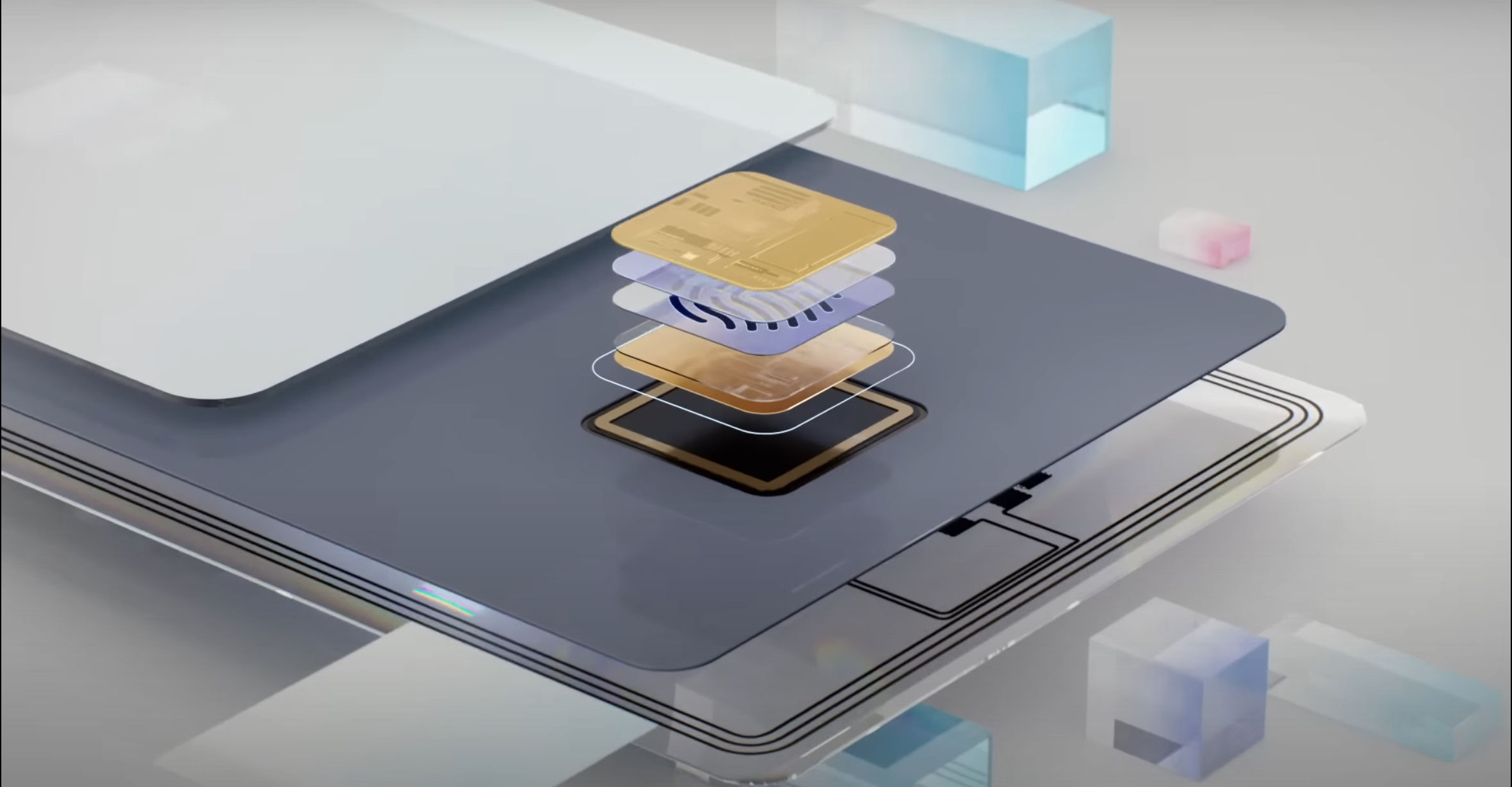
Samsung is one of the technology leaders in the world representing a 3D animation to show the Samsung Biometric Card IC. Throughout the 3D animation, Samsung is trying to give a picture of the capability of their chip in the biometric card.
2. Slack vs Email
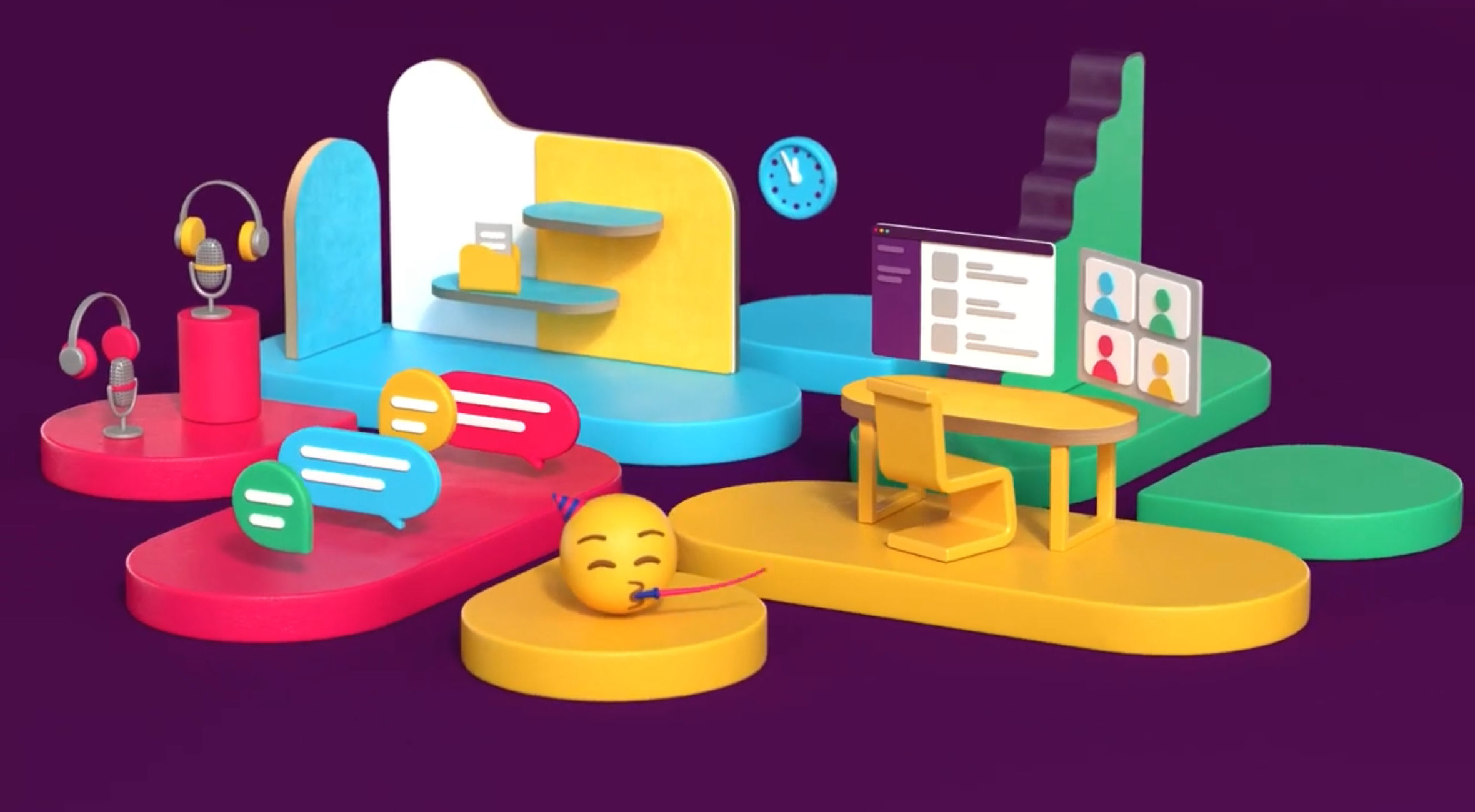
The main idea of Slack is to spread product awareness about how Slack could work on the company’s email. To keep the idea, Slack points out the brand color in the motion design along with the motion effect. As an explainer video, Slack vs Email comes up with clear storytelling to deepen knowledge about the product.
3. Super Mario x Oreo
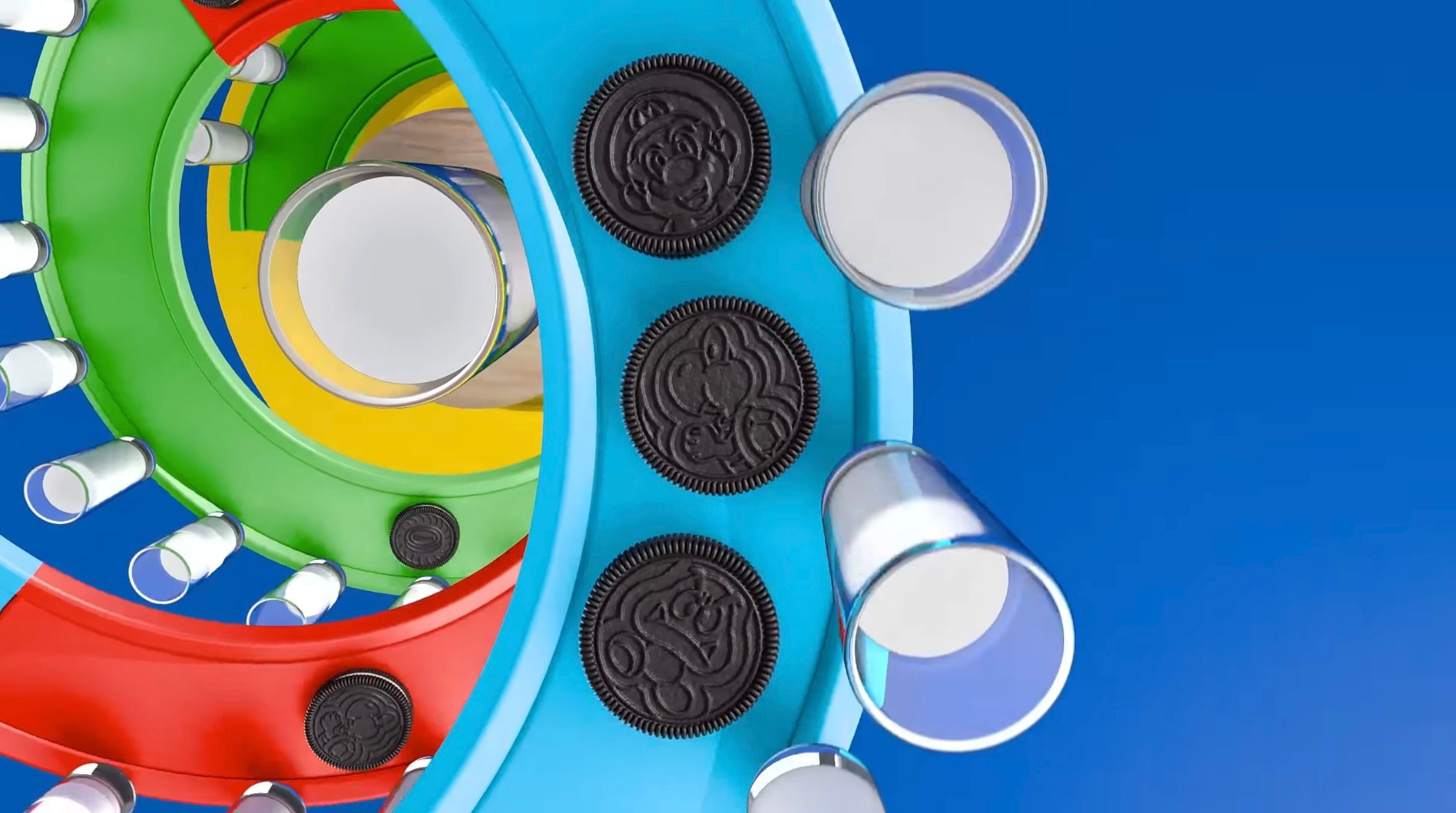
Oreo remains with a playful brand personality. Super Mario x Oreo 3D animation serves as a unique collaboration video with the spotlight on the Super Mario characters along the iconic OST. The 3D animation consistently uses a vibrant color palette to influence the audience’s emotions such as excitement, happiness, and playfulness.
4. Heinz – Real Stories
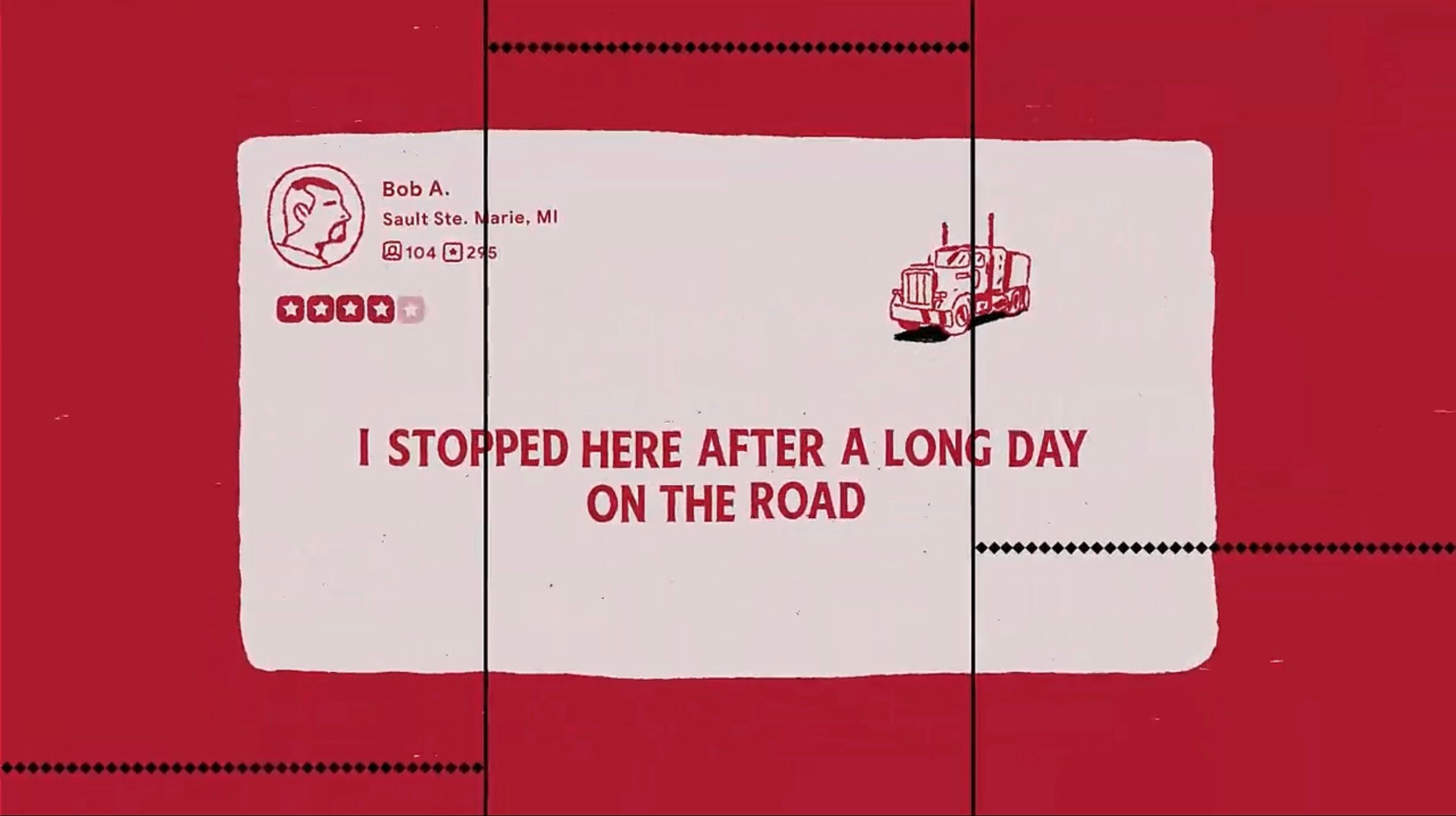
Heinz Real Stories is a testimonial video teaser for their new product. The animation storyboard collects customers’ feedback about Heinz and is framed into a vintage video. The main key of this design is the retro font, kinetic typography, hand-drawn elements, and grain effect to recall the old-style animation video.
5. Sign In With Google
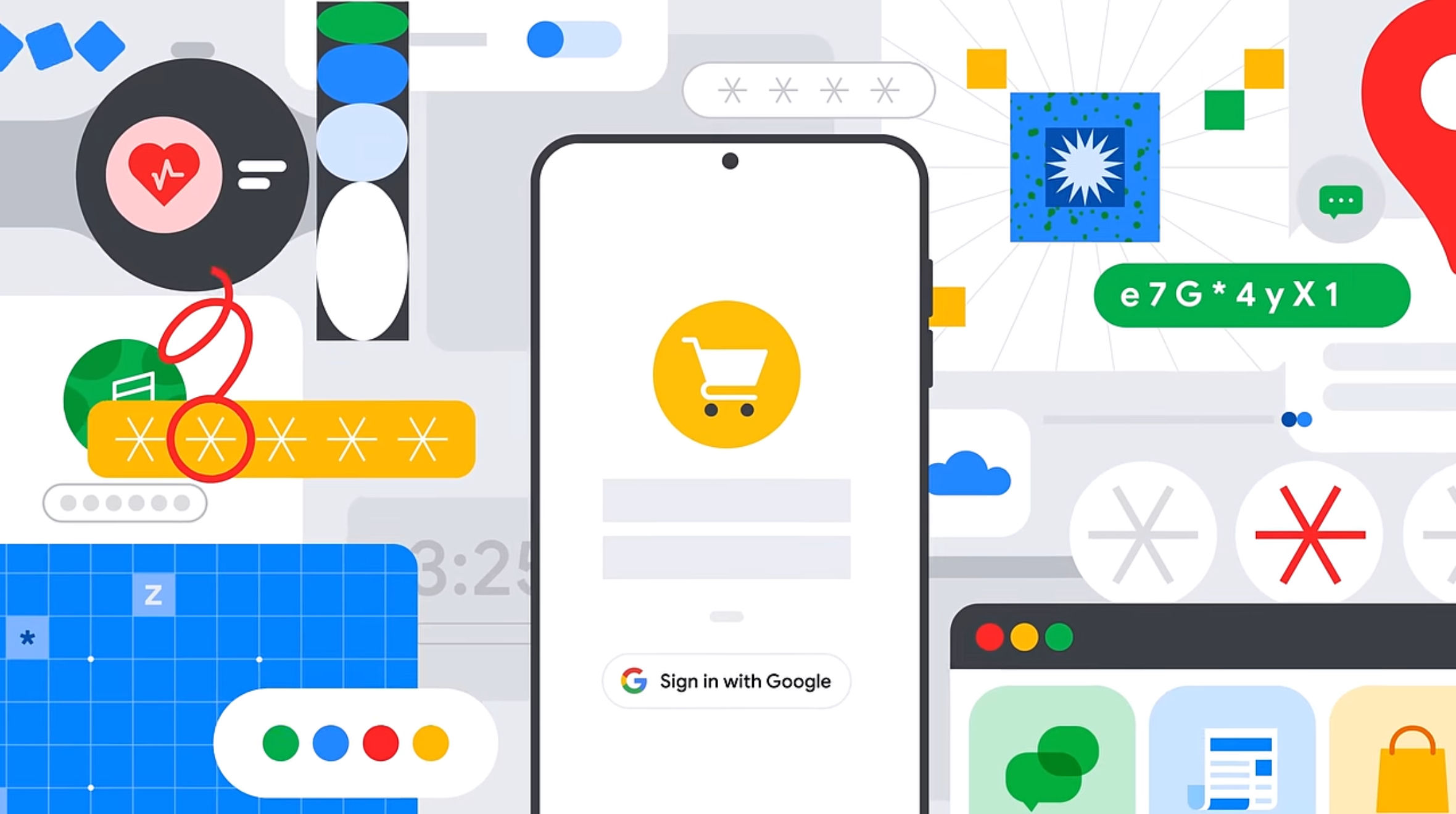
Google released a promotional video to influence users to sign in using a Google account for any purpose. The clear voiceover is helpful to explain the feature to the users. In addition, through animation videos, Google consistently exemplifies the brand color to be the spotlight and brand awareness.
6. Microsoft – Majorana 1
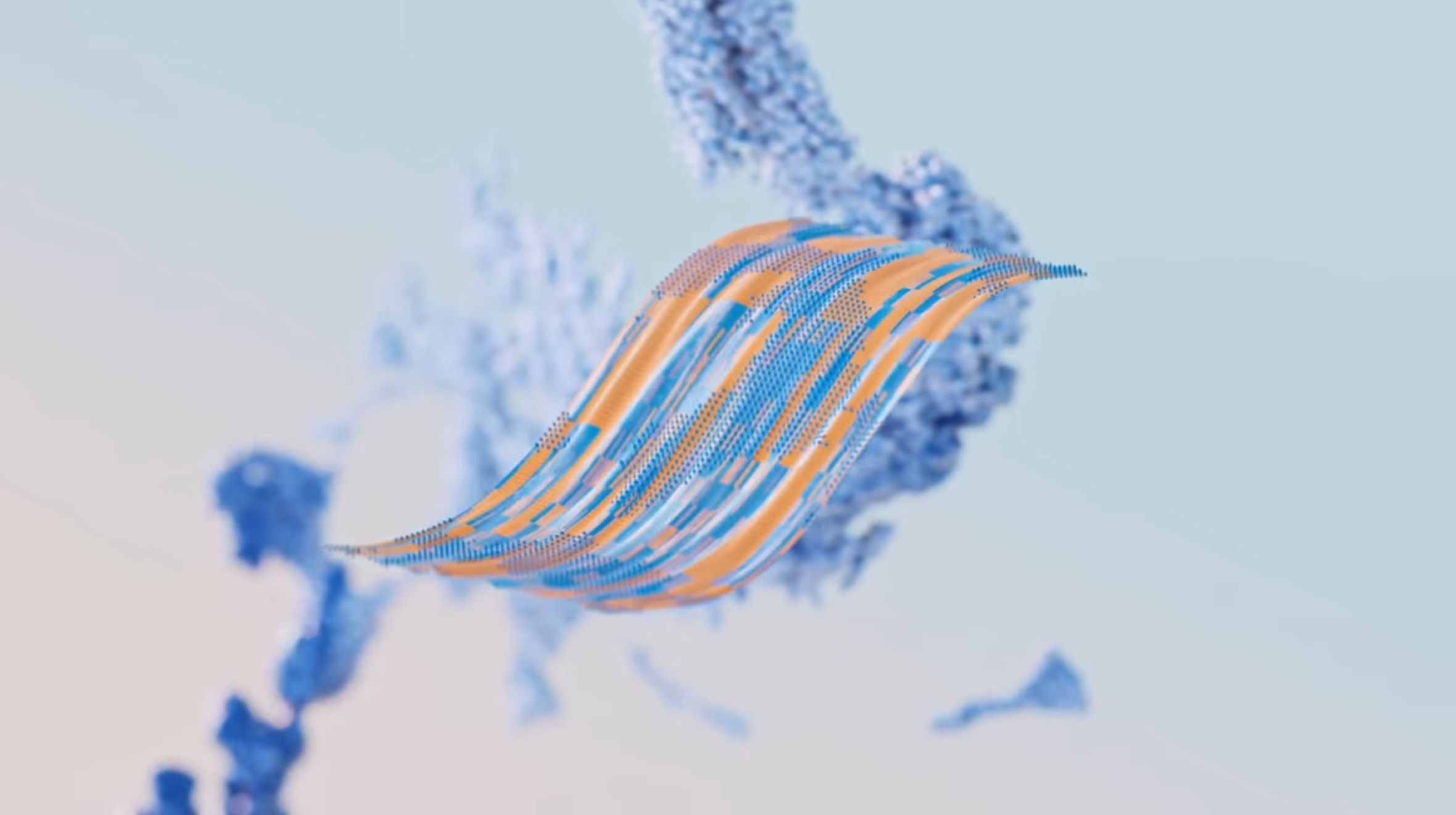
There is a unique introduction video with 3D animation in advertising campaign for Microsoft’s new chip, Majorana 1. Microsoft serves an intense animation video with dramatic music, lighting, and motion to reveal the capability of Majorana 1’s chip.
7. Shopify Shop Campaigns
Shopify serves an explainer video to suggest the audience run a campaign on its platform. To influence the audience’s decision, Shopify presents a motion design in sync with voiceover and additional point elements. The elements such as coins and social media icons enhance Shopify’s niche as an e-commerce platform.
8. Introducing Zapier Tables
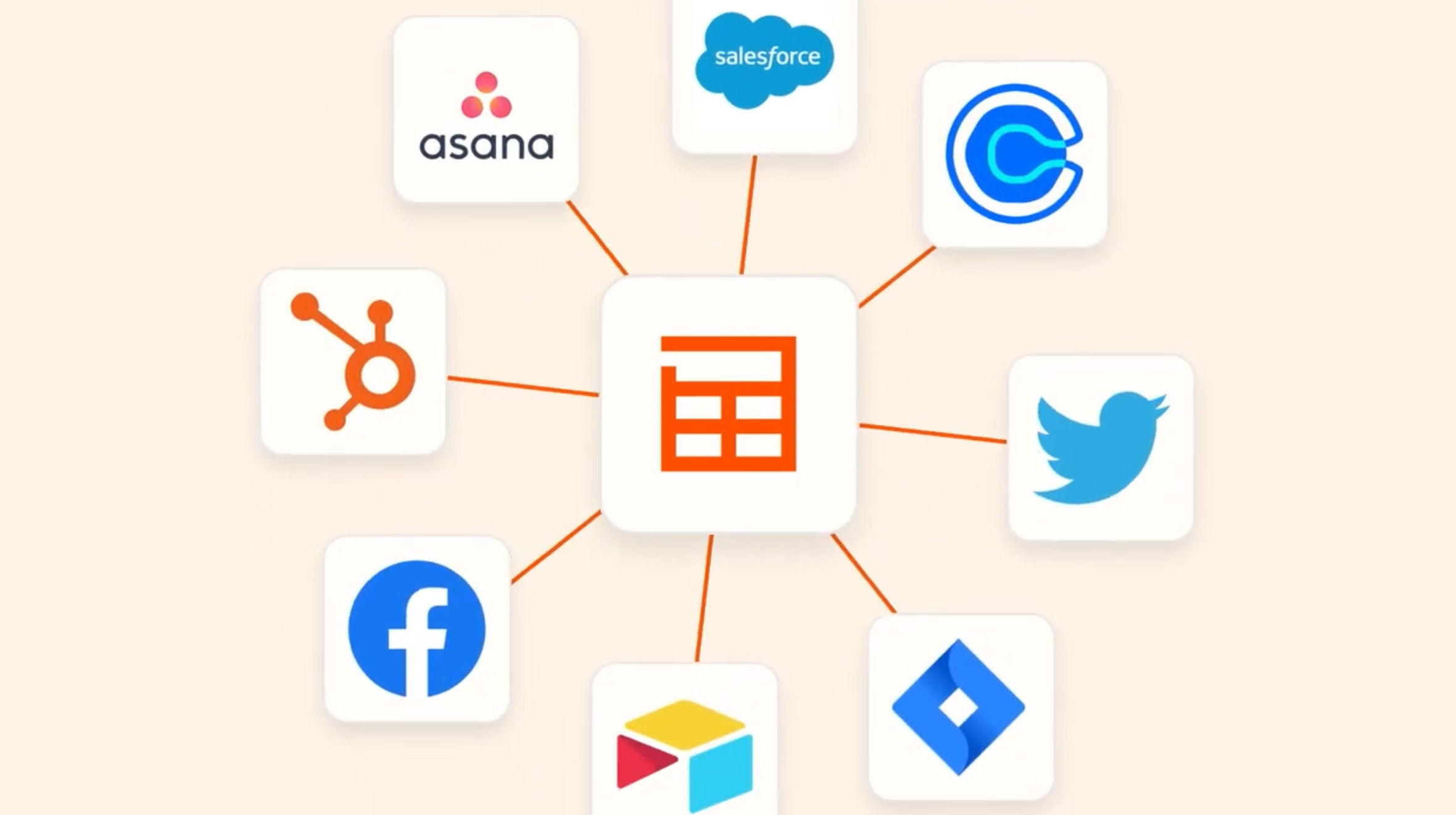
To introduce Zapier’s new feature, Tables, Zapier dropped a creative promotional video. Typography and app screenshots become the main focus to promote the Tables’ capability to the audiences. The understanding could be easier since Zapier presents a step-by-step application for Tables.
9. Announcing HubSpot App Cards
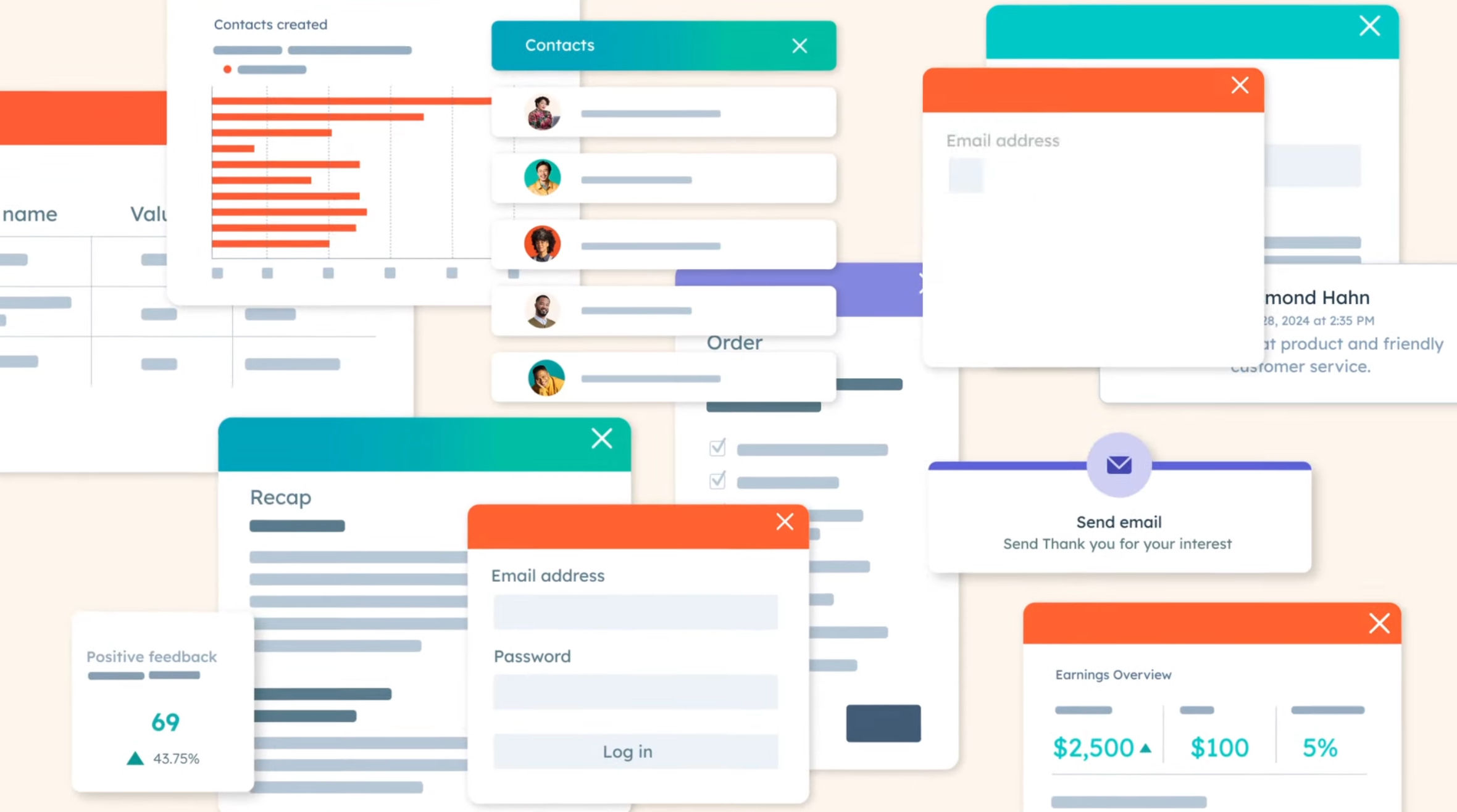
Furthermore, HubSpot successfully pulls the animation card on their campaign video by playing motion effects such as pop-ups, moving objects, and zooming. Regardless, complex effects come along well with the clear voiceover to deepen understanding of the App Cards.
10. Duolingo Owl Takes Over Roblox
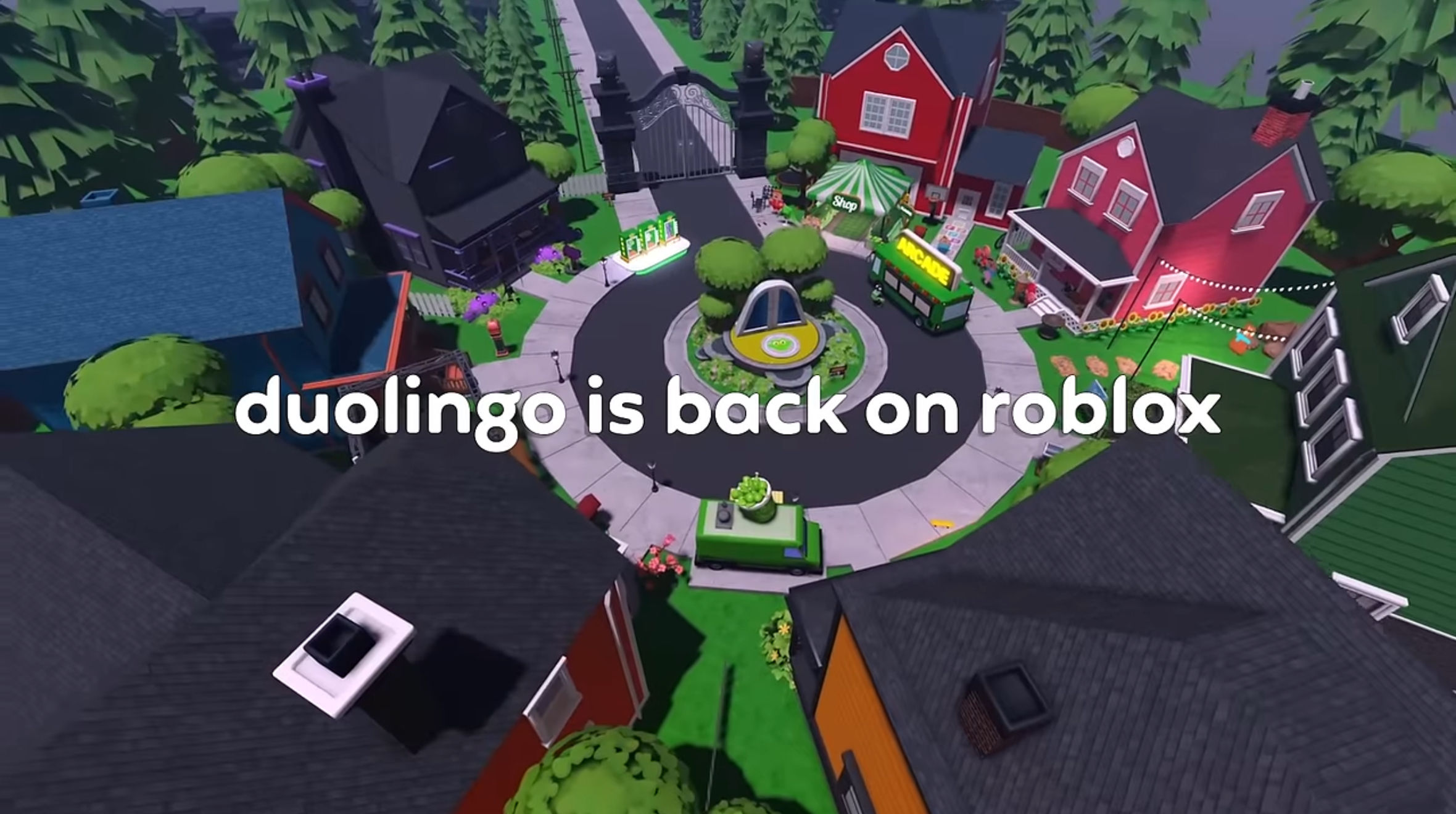
Duolingo presents a creative 3D animation in advertising to speak for the new collaboration with Roblox. The Duolingo x Roblox animation successfully shows a mood shift with two different tones and music in the video. It results in an intense teaser video to promote their new game collaboration that will be fun and thrilling.
11. McRib – McDonald’s
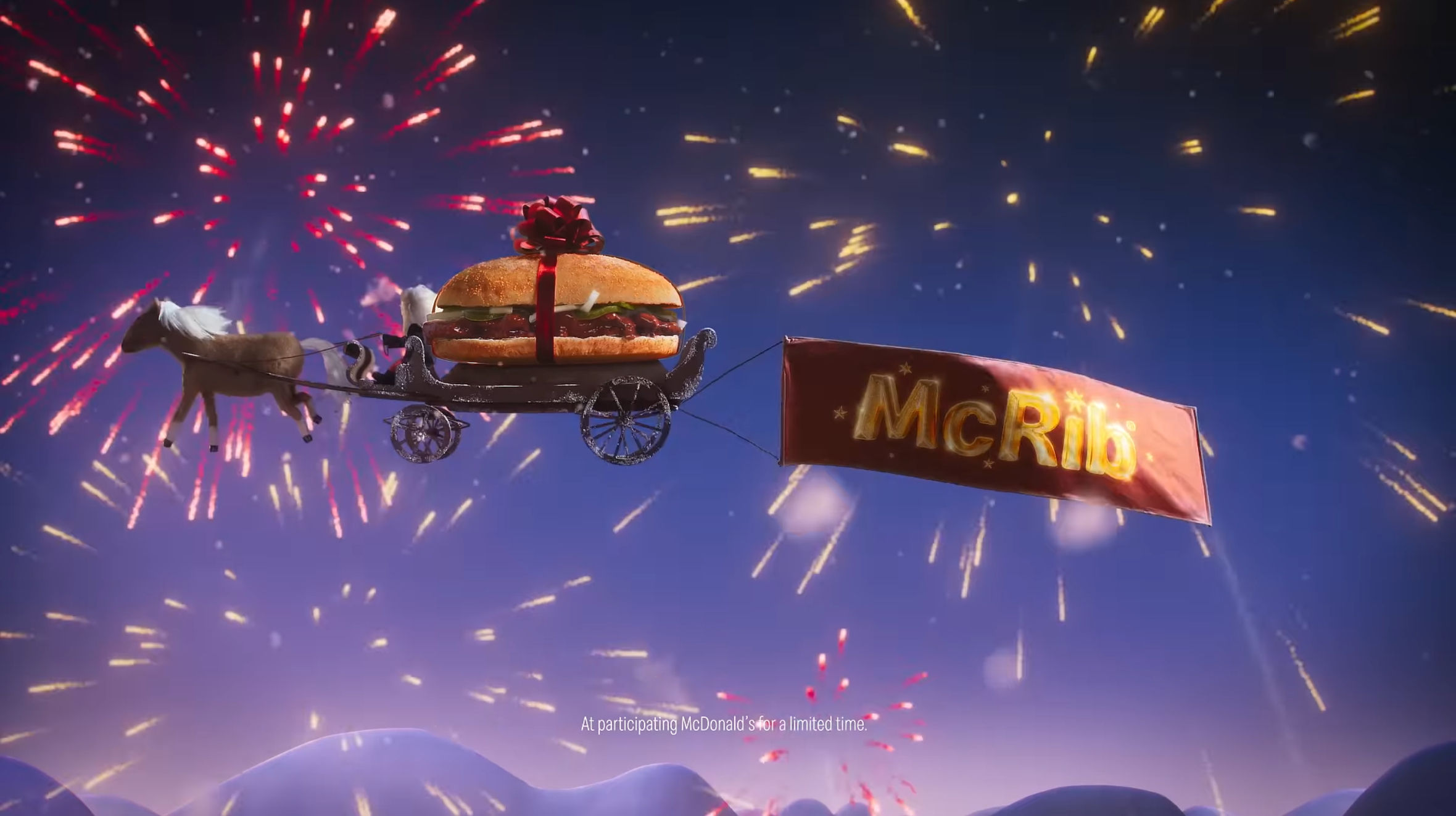
It Could Only Mean One Thing is a Christmas-themed animation advertisement from McDonald’s to introduce their seasonal menu, McRib. Thus, McDonald’s put the McRib as the main character in the video along with special effects.
The effects such as a firework effect, snow, and winter-themed music enhance the winter mood. Additionally, it also influences the audience’s emotions to feel warm and excited about Christmas.
12. Hankook Ventus Evo